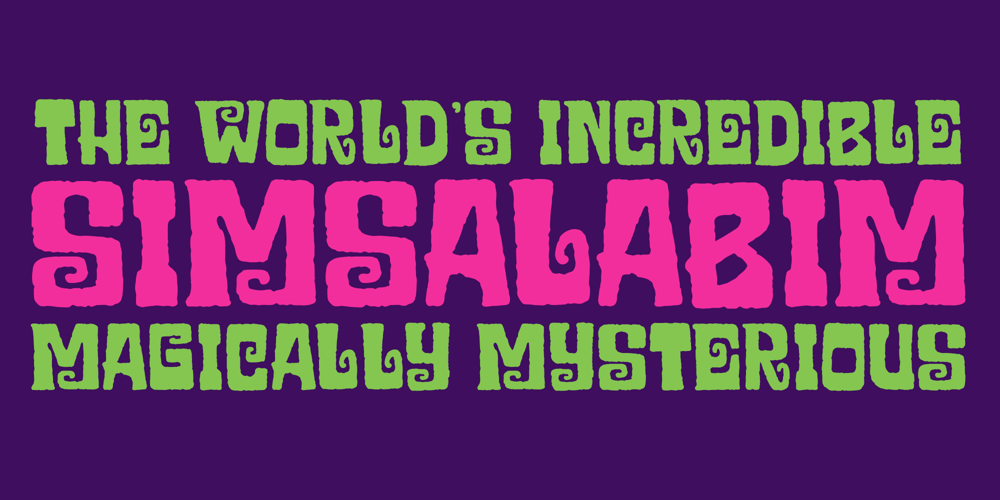
Simsalabim Font Family was designed by Brian J. Bonislawsky, Dave Cohen and published by One Eyed Squid. Simsalabim contains 1 styles and family package options. No it’s not an illusion! Just like a rabbit out of a hat, Simsalabim works genuine magic on your design projects. Create big headlines out of thin air in just seconds! You’ll be amazed at what you can conjure up with Simsalabim.(Simsalabim contains an extended Latin character set with added Vietnamese support.)